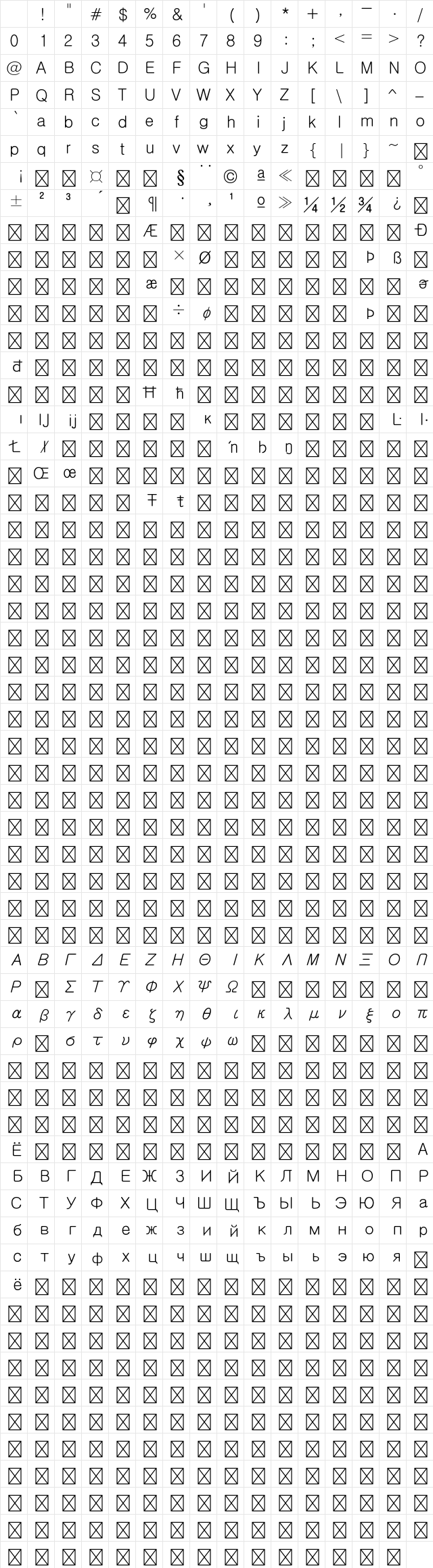
HY Rounded Gothic Std M
Complete HY Rounded Gothic Std M glyph index. Displaying only characters natively supported by HY Rounded Gothic Std M font.
Design Context for HY Rounded Gothic Std
HY Rounded Gothic Std takes a clean, functional approach - its unadorned letterforms prioritise legibility and work reliably across screen and print environments.
Font Pairing: Works well alongside a characterful serif or display font that can carry the expressive load while HY Rounded Gothic Std handles the functional copy.
Pro Tip: Use HY Rounded Gothic Std for UI labels, navigation, and short-form body copy where clean legibility is the priority.